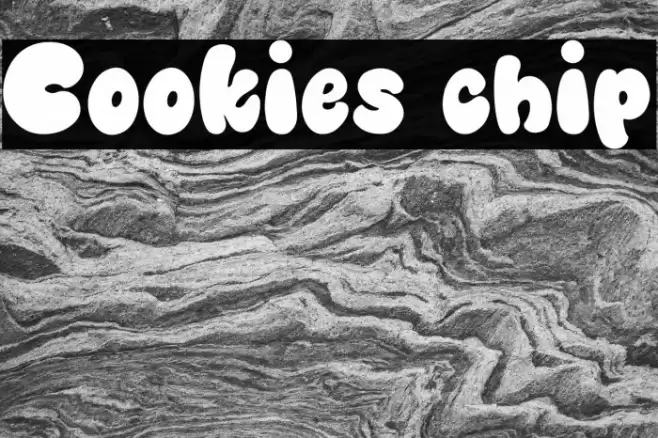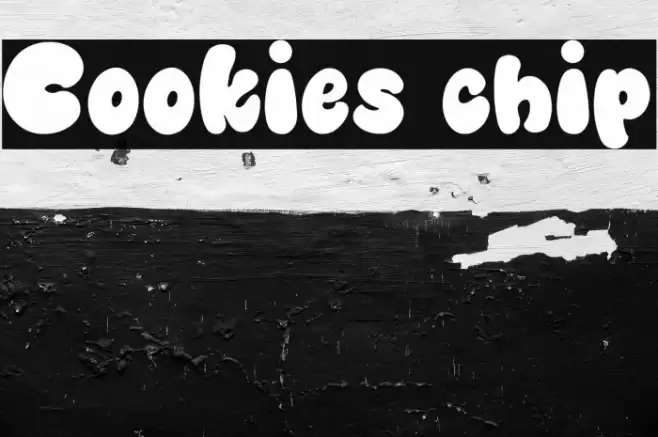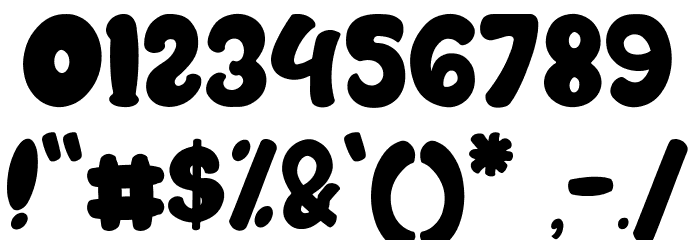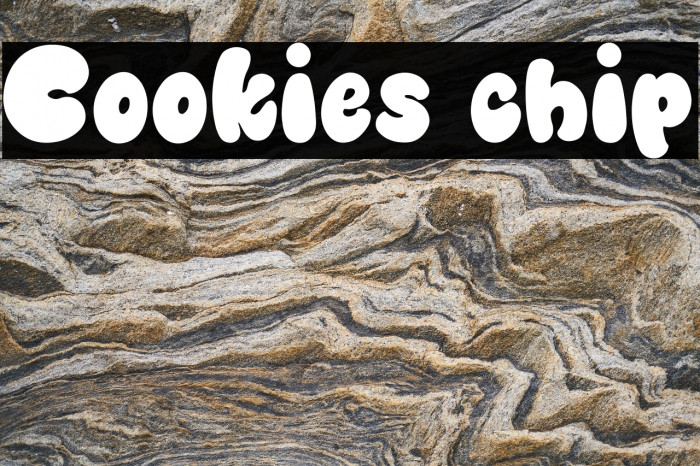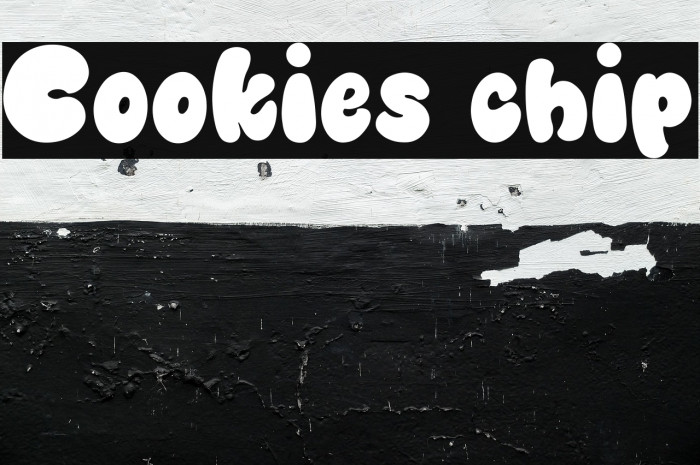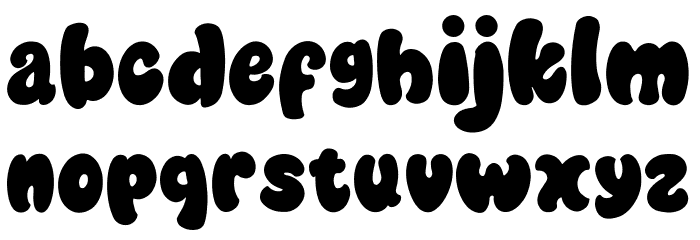
Cookies chip Font
Cookies chip Description
This playful and bold font features rounded, bubbly characters that evoke a sense of fun and whimsy. The letters are thick and have a consistent weight throughout, creating a cohesive and eye-catching appearance. The font's unique style is reminiscent of cartoonish or comic book lettering, making it ideal for projects that require a lighthearted and informal touch. The characters are evenly spaced, ensuring readability while maintaining the font's distinctive charm. Its exaggerated curves and soft edges give it a friendly and approachable feel, perfect for engaging audiences in a casual setting.
A playful, bold font with rounded, bubbly characters ideal for fun and whimsical designs from Cartoon fonts.
- Proposed Projects: Great for children's books, playful branding, party invitations, and comic-style graphics.
- Overall Style: Playful, Whimsical